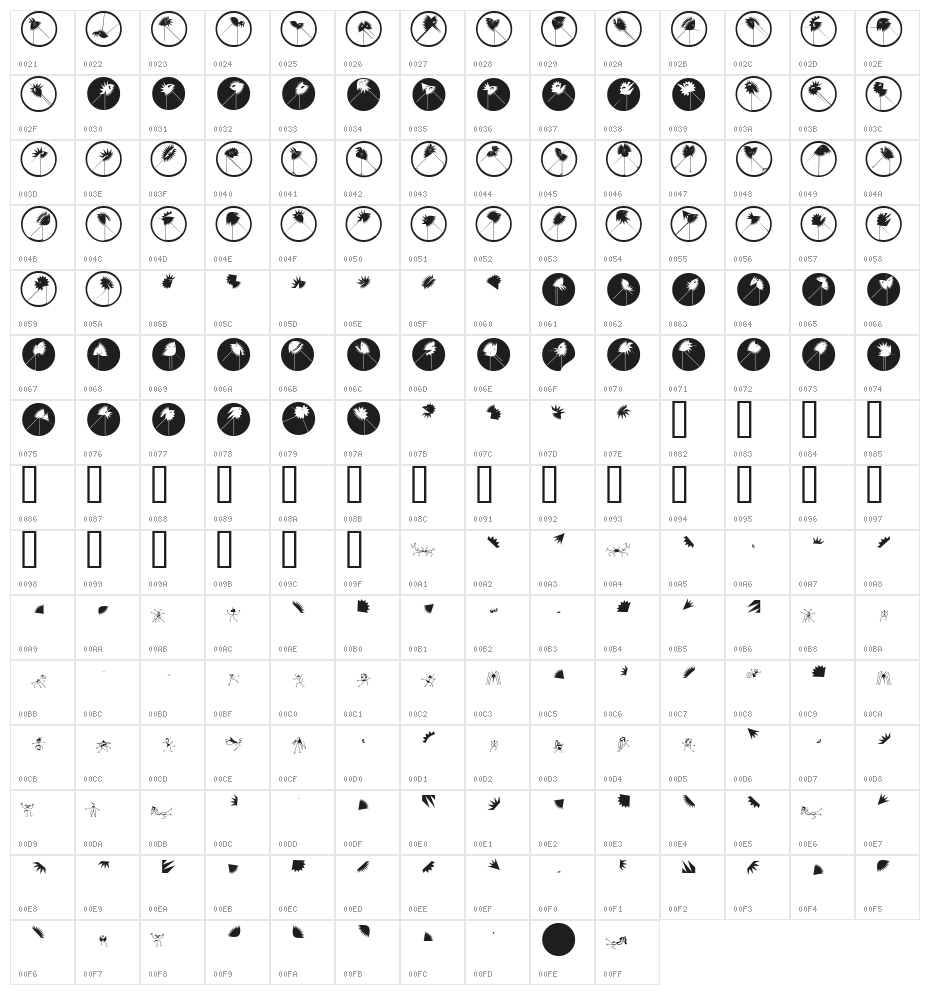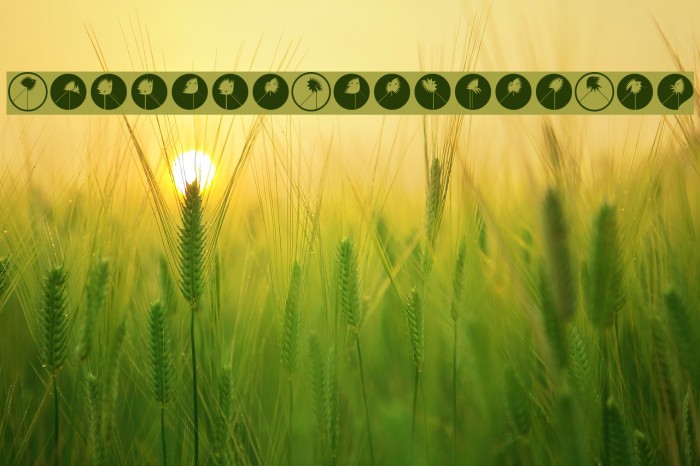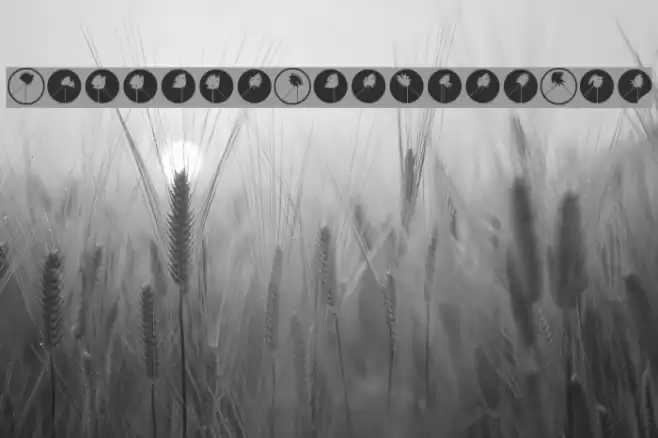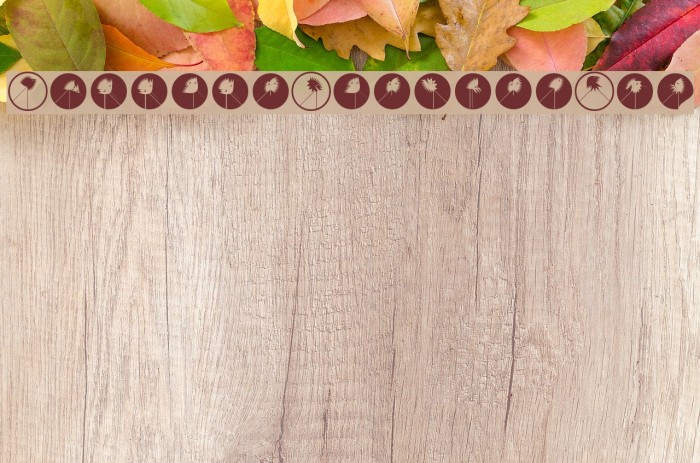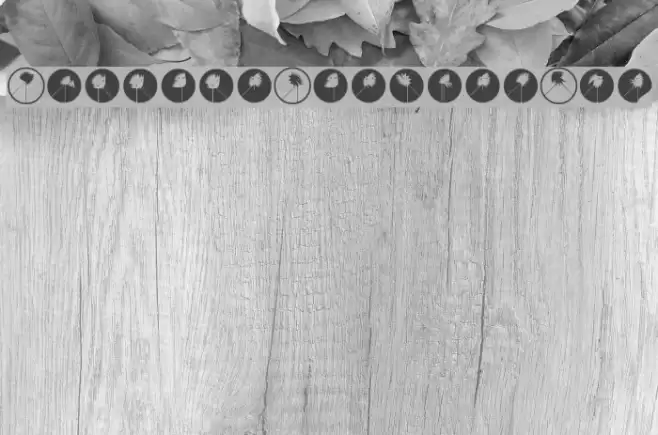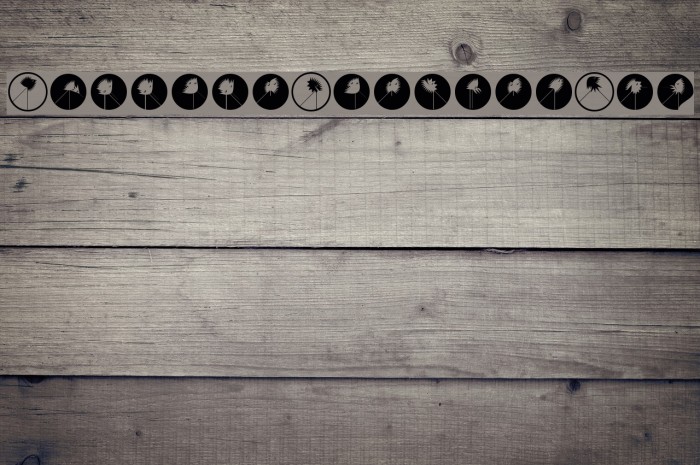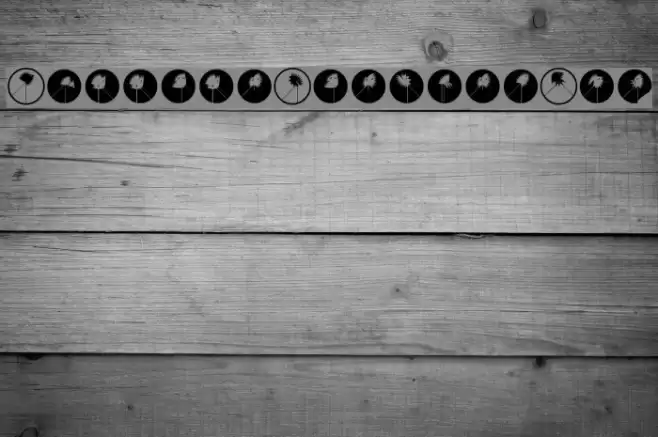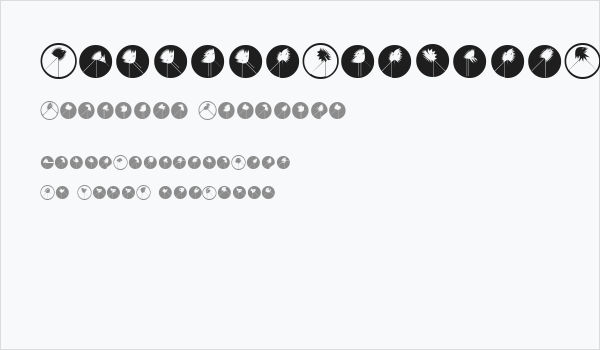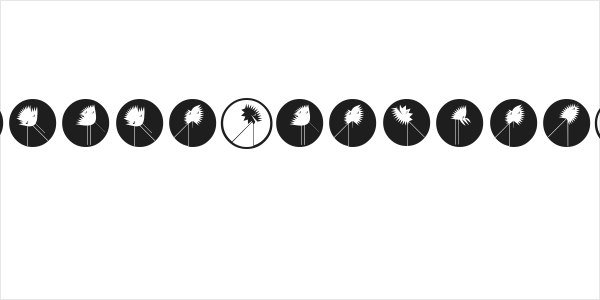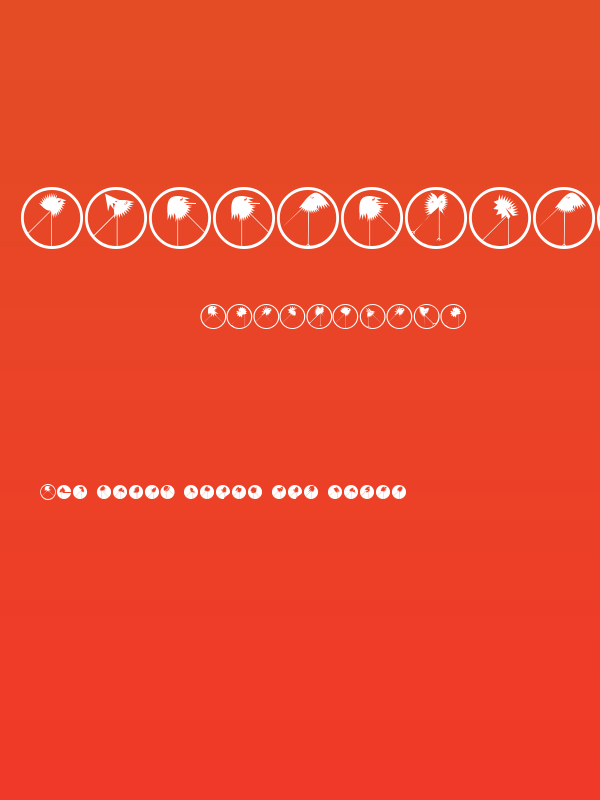
RunningZigzagsTwo Font
RunningZigzagsTwo Description
This is not a valid font. The image contains a series of abstract symbols or icons within circular frames, resembling stylized plant or feather-like shapes. These symbols do not correspond to any recognizable alphabet or numerical system, and therefore cannot be described as a font.